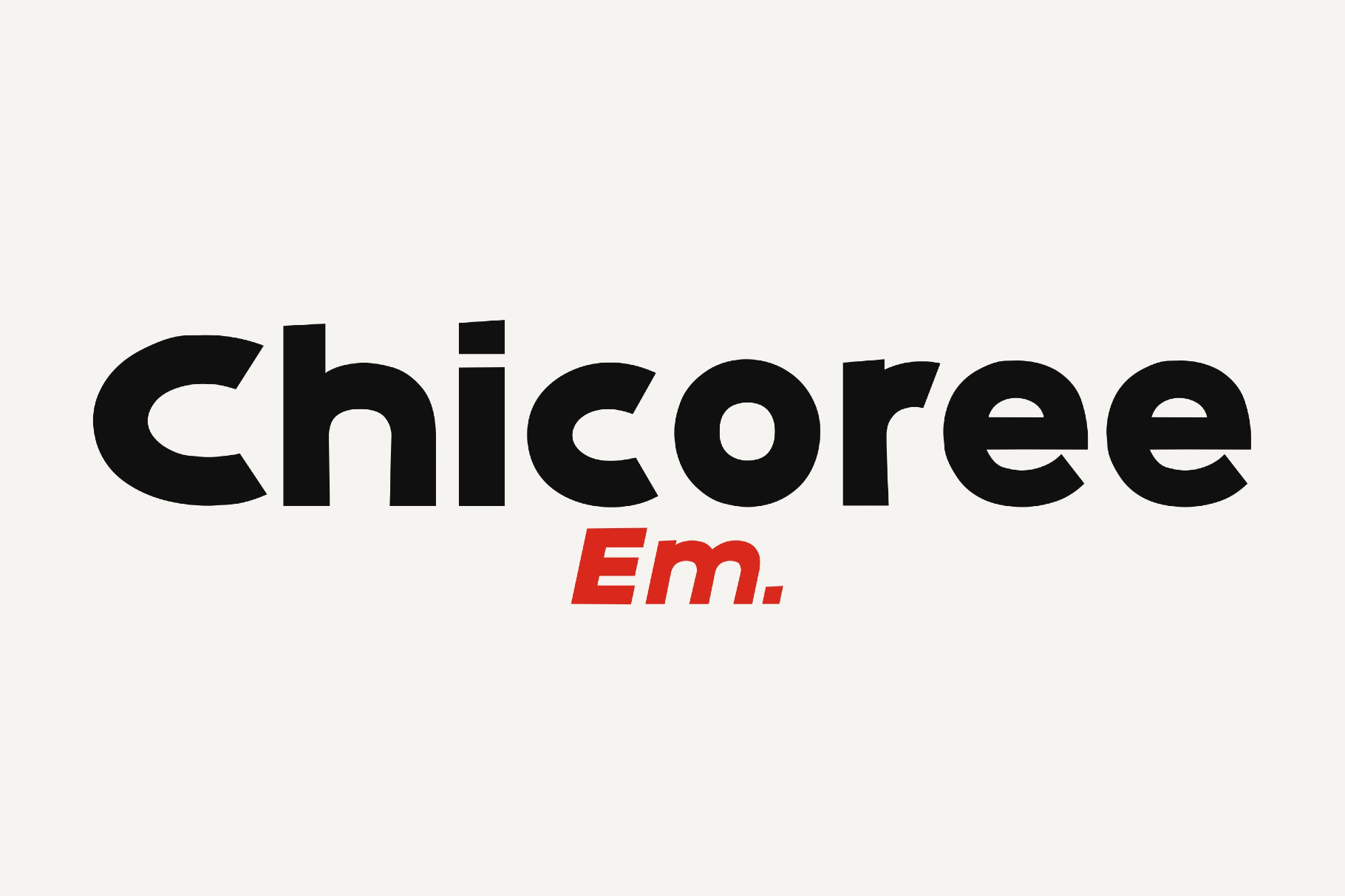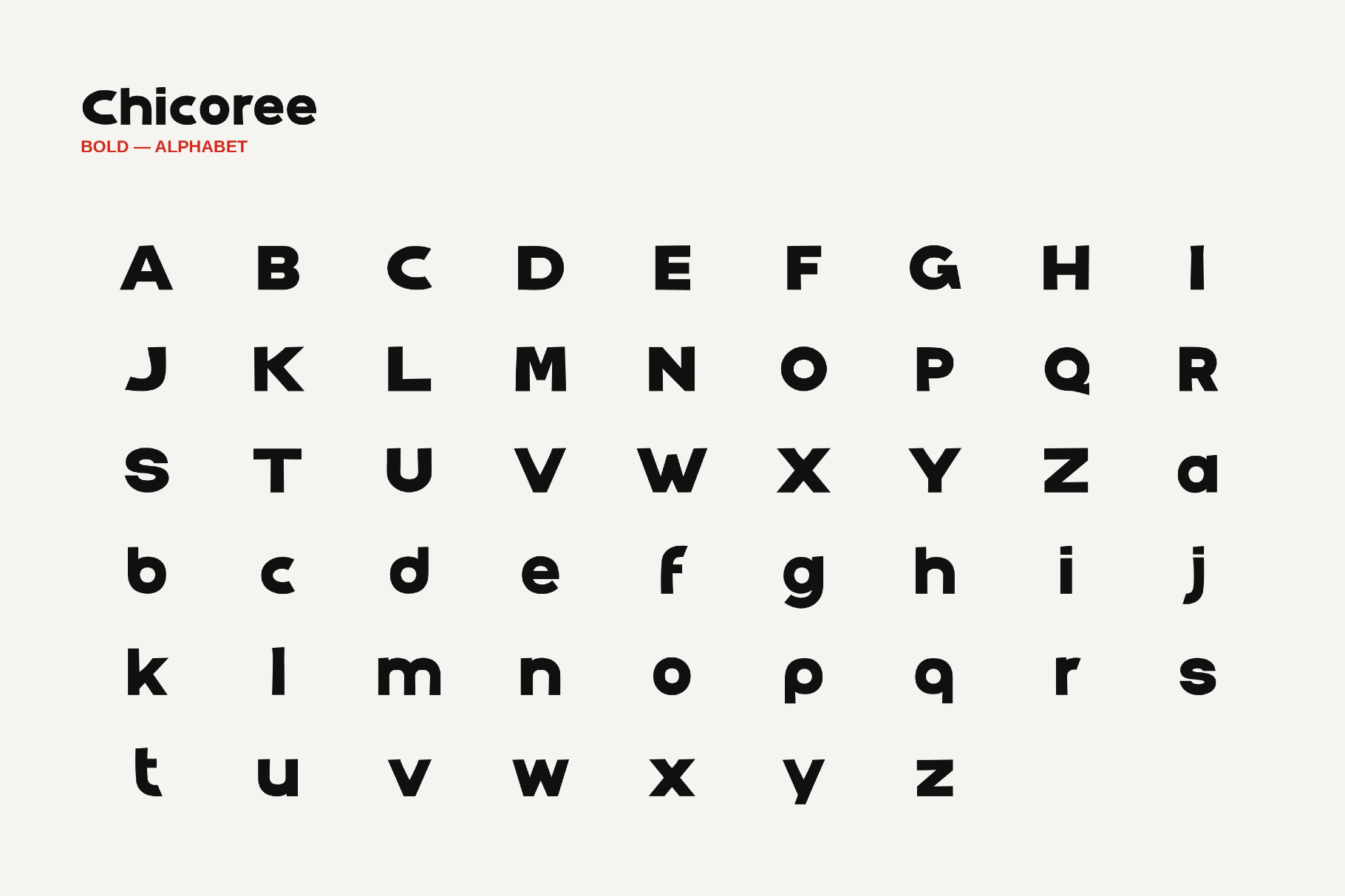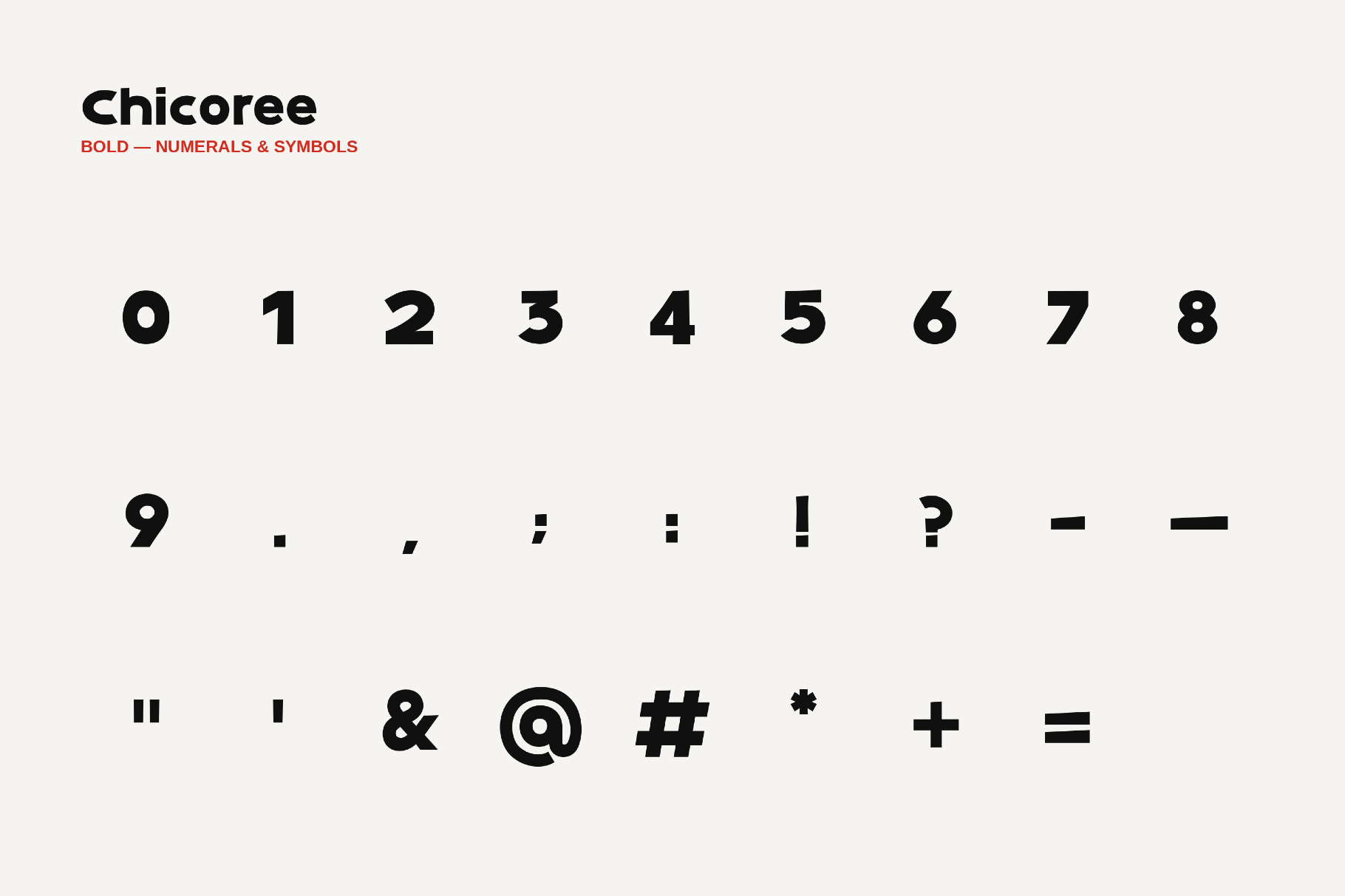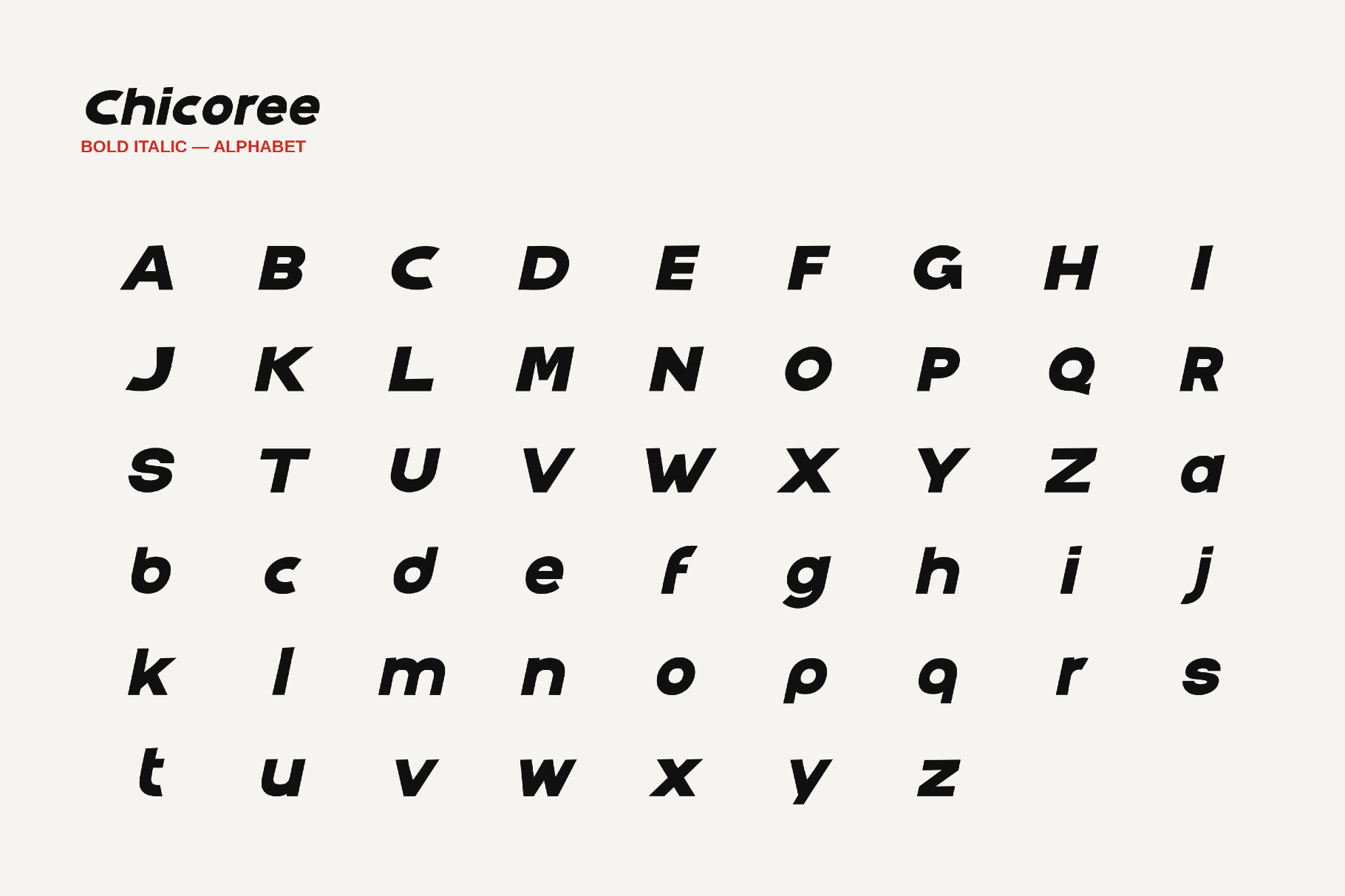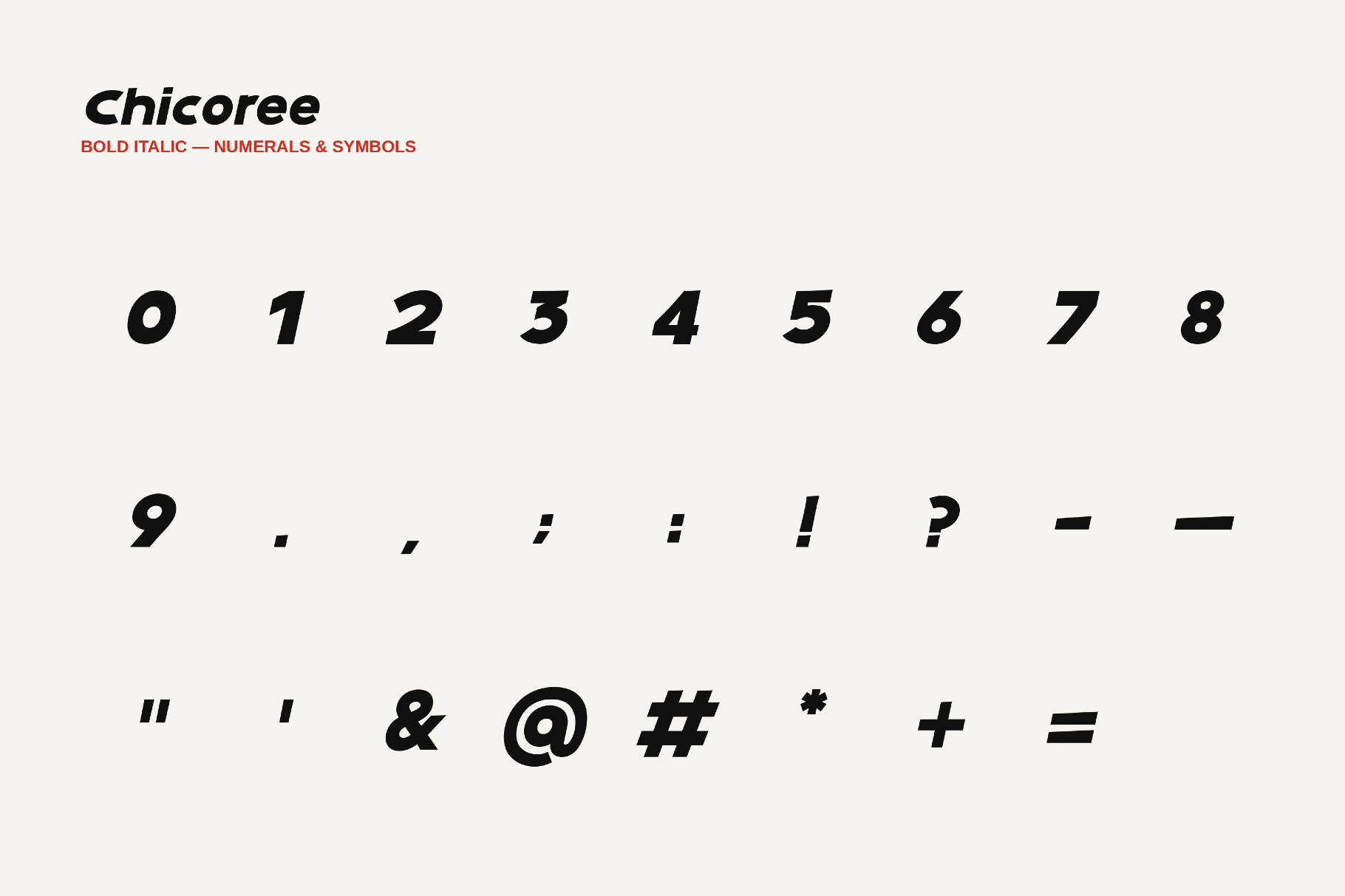
Chicoree - 1950s Font
Chicoree Em- Bold
Chicoree curls into a whimsical serif style with ornamental flicks and storybook eccentricity. Its decorative rhythm evokes Art Nouveau shop signs, vintage confectionery labels, illustrated fairy-tale covers, and tea-room menus.
Curved details give short phrases and display layouts a refined decorative voice, making it a good choice for boutique packaging, café menus, book titles, greeting cards, craft branding, children’s posters, and social media graphics.
- two styles: Bold and Bold Italic;
- uppercase and lowercase letters;
- numbers, punctuation, dingbats, and symbols;
- multilingual support across extended Latin, Cyrillic, and Greek scripts.